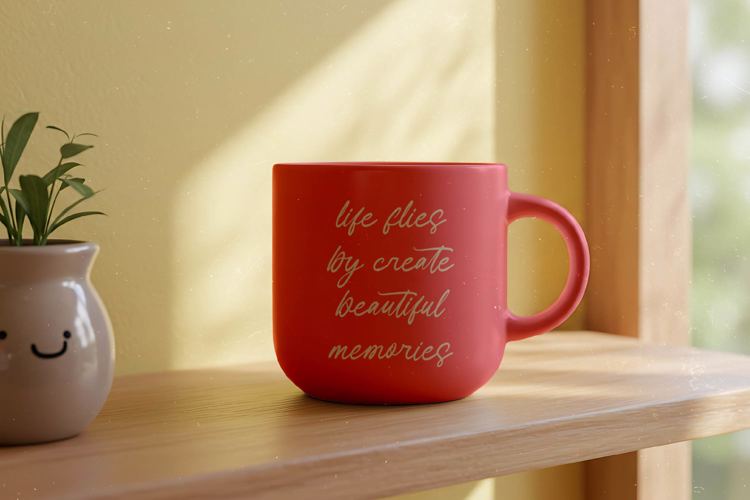
Juicy Cheri VERSION Font
Juicy Cheri - Aesthetic Handwritten
Elevate your creative vision with a typeface that embodies contemporary elegance and a fluid organic rhythm. Juicy Cheri - Aesthetic Handwritten offers a stunning balance between handcrafted charm and professional polish, making it an essential tool for designers seeking a high-impact visual identity. Its flowing strokes and natural connections create a sophisticated silhouette that captures attention instantly, ensuring your message is delivered with both warmth and authority.
Precision engineering meets artistic expression in this comprehensive font package featuring over 539 glyphs. With its extensive multilingual support, Juicy Cheri - Aesthetic Handwritten adapts seamlessly across global markets, making it incredibly versatile for international projects. The inclusion of 182 ligatures and 25 alternates allows for customizable typography that looks truly bespoke, providing the technical versatility required for complex, high-end design environments.